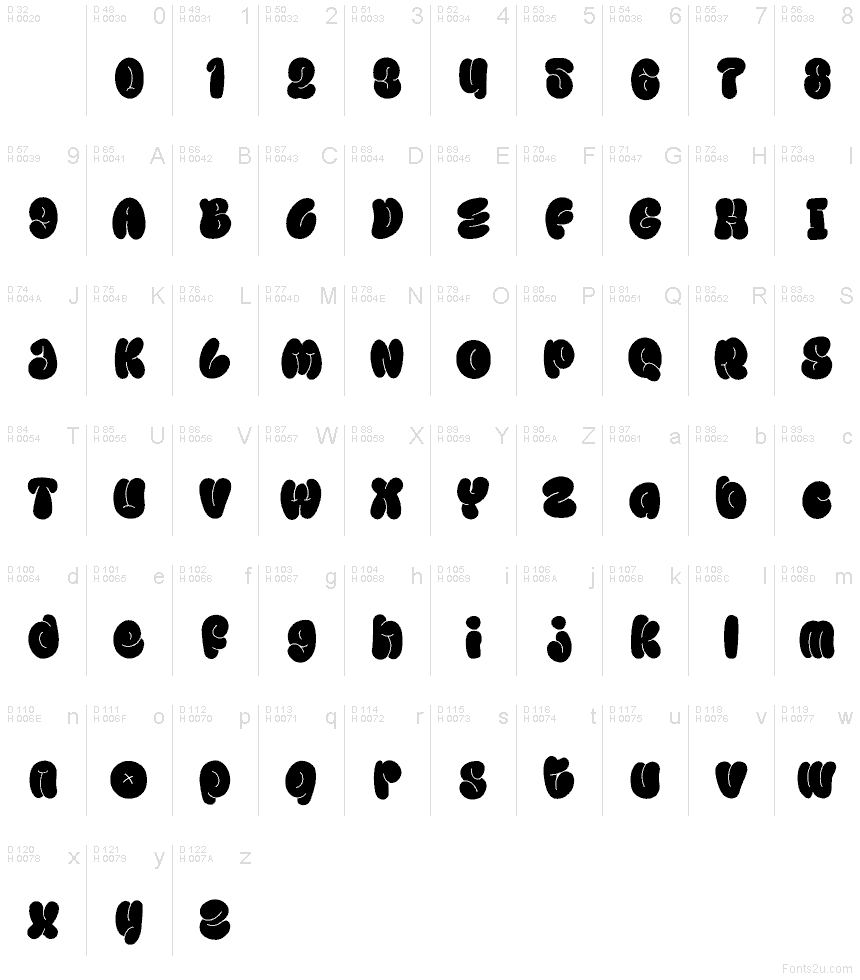
Moonie Eyes DEMO
Moonie Eyes font is a whimsical graffiti-style typeface by Ikiiko Type. It has a friendly look characterized with bold round strokes and evenly spaced letters. This free display font holds some retro vibes, locking it into place for different use projects.
Use Moonie Eyes in posters, book covers, packaging designs, magazine headers, album covers and titles of animated movies or series. Illustrate children’s storybooks with friendly texts and quotes in between drawings of characters and trees to attract youngsters’ attention to the book’s content.